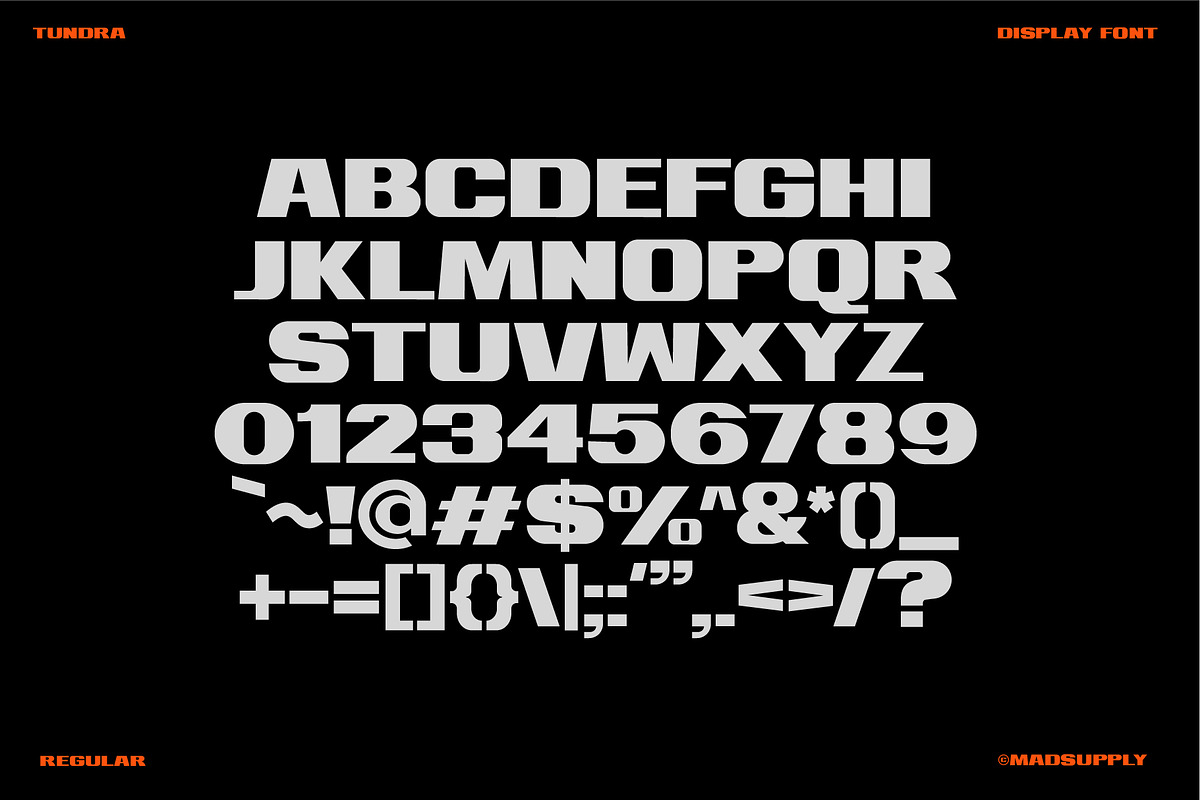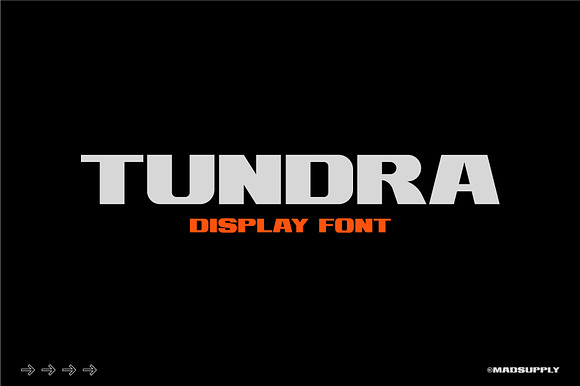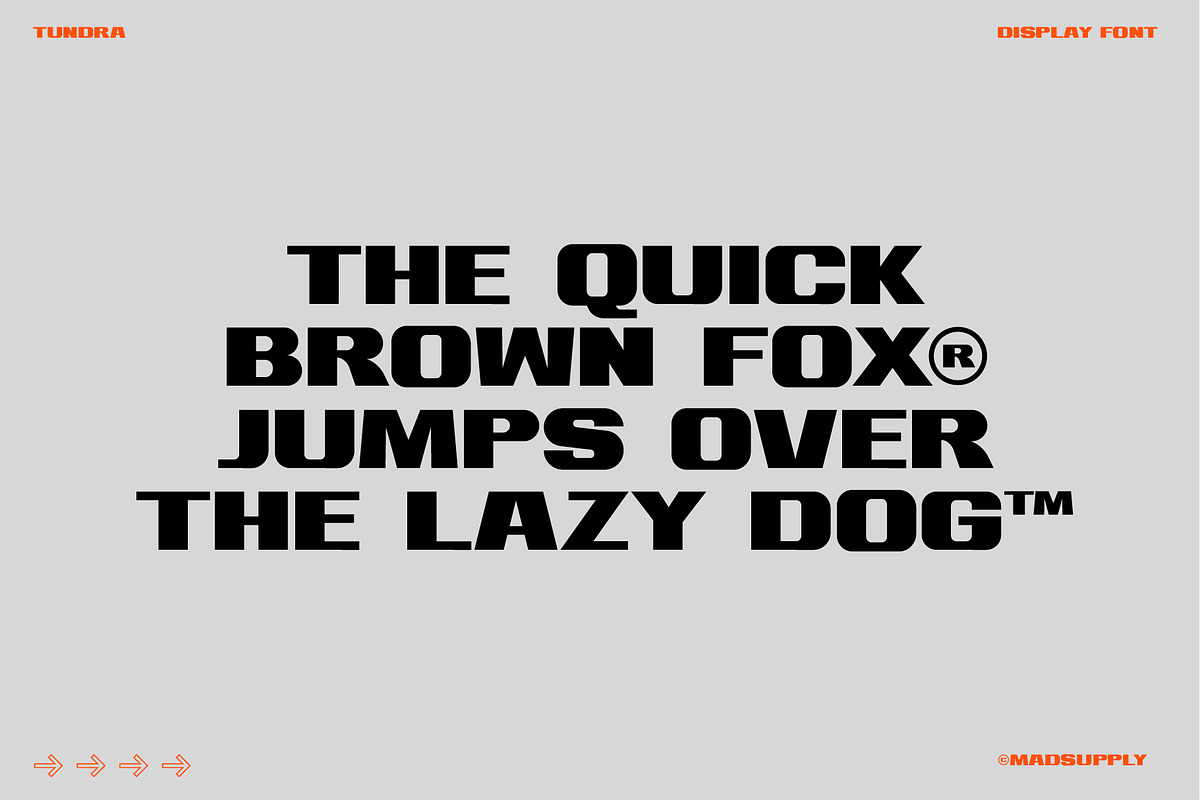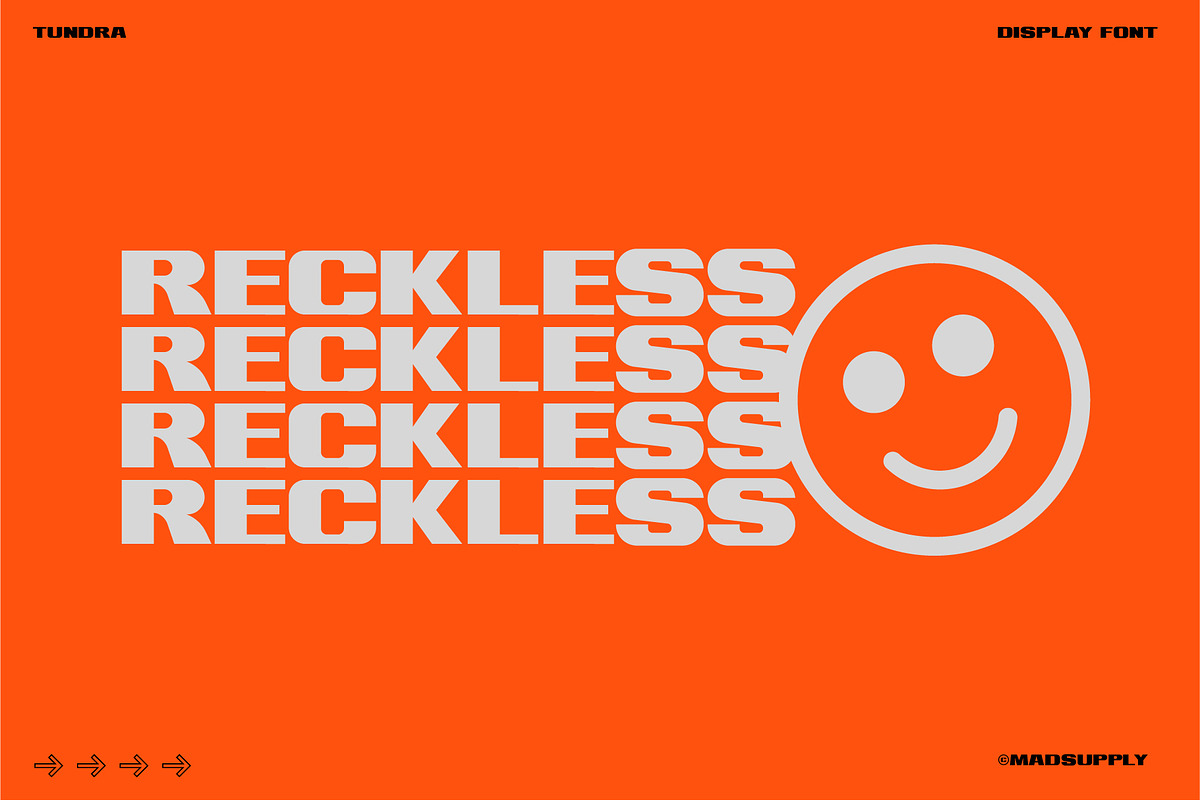
Tundra - Bold Display Font
Tundra is a modern, bold and aggressive sans-serif display font. Tundra is currently a single weight, caps only font and does not include Latin support.
Tundra - Bold Display Font by Mad Supply fits naturally into Branding, posters, packaging, typography.